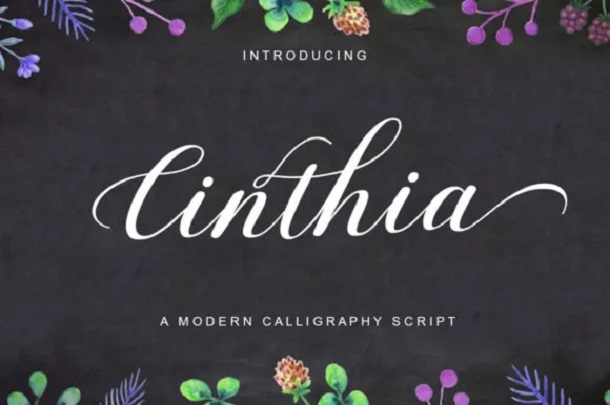
Cinthia Font
Cinthia offers a vibrant yet sweet font. Its dancing characters bring casual charm, making this font ideal for creating playful yet elegant designs.
Cinthia Calligraphy Font